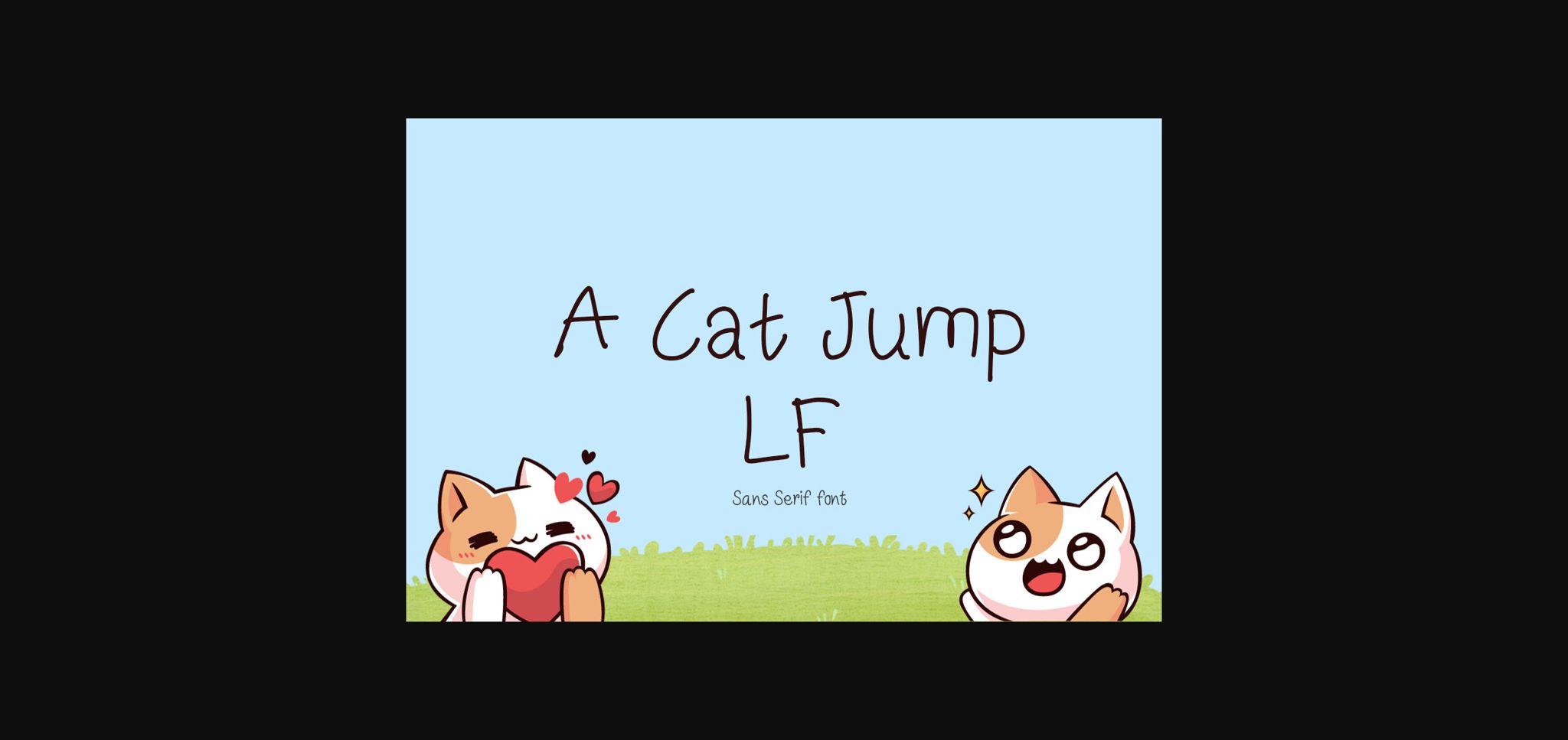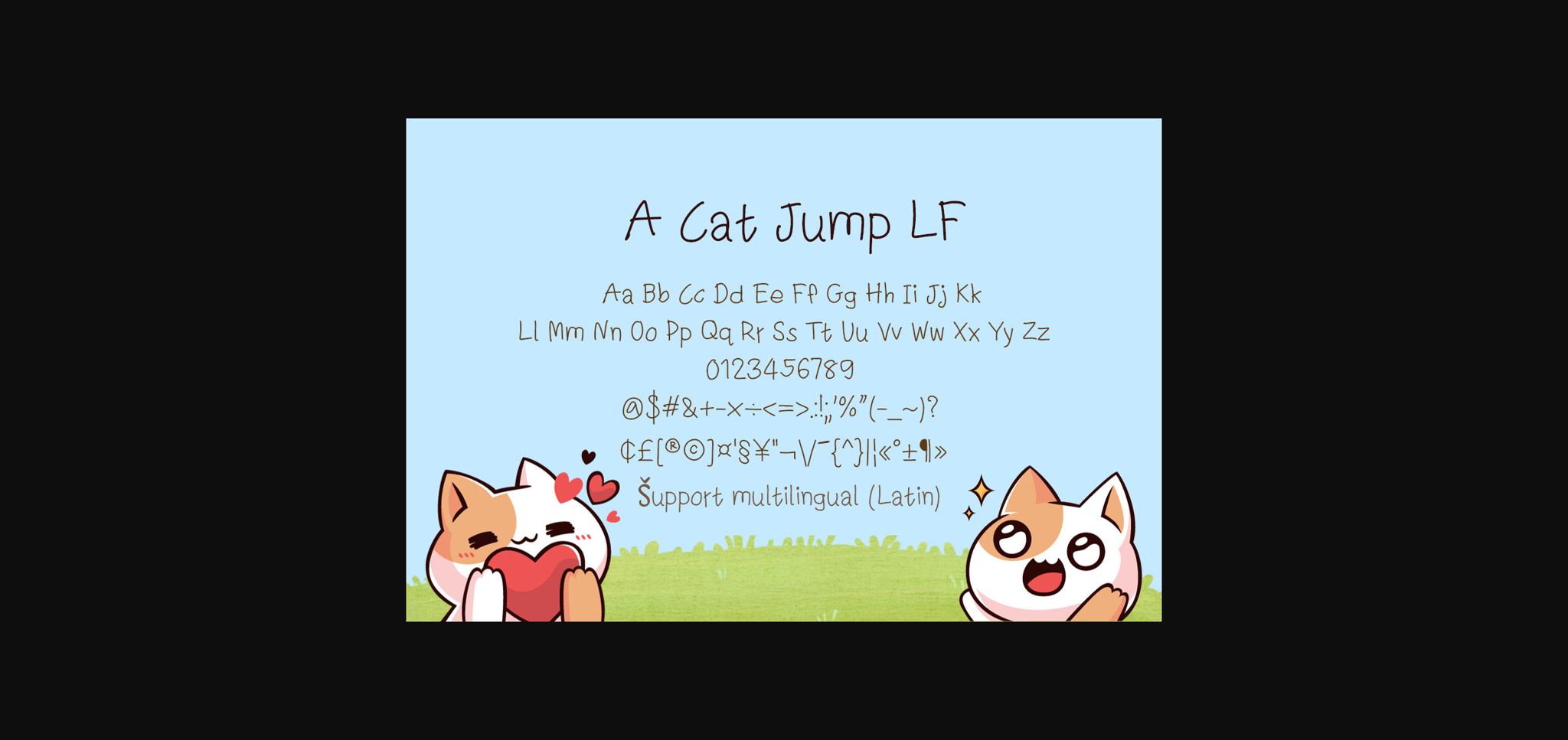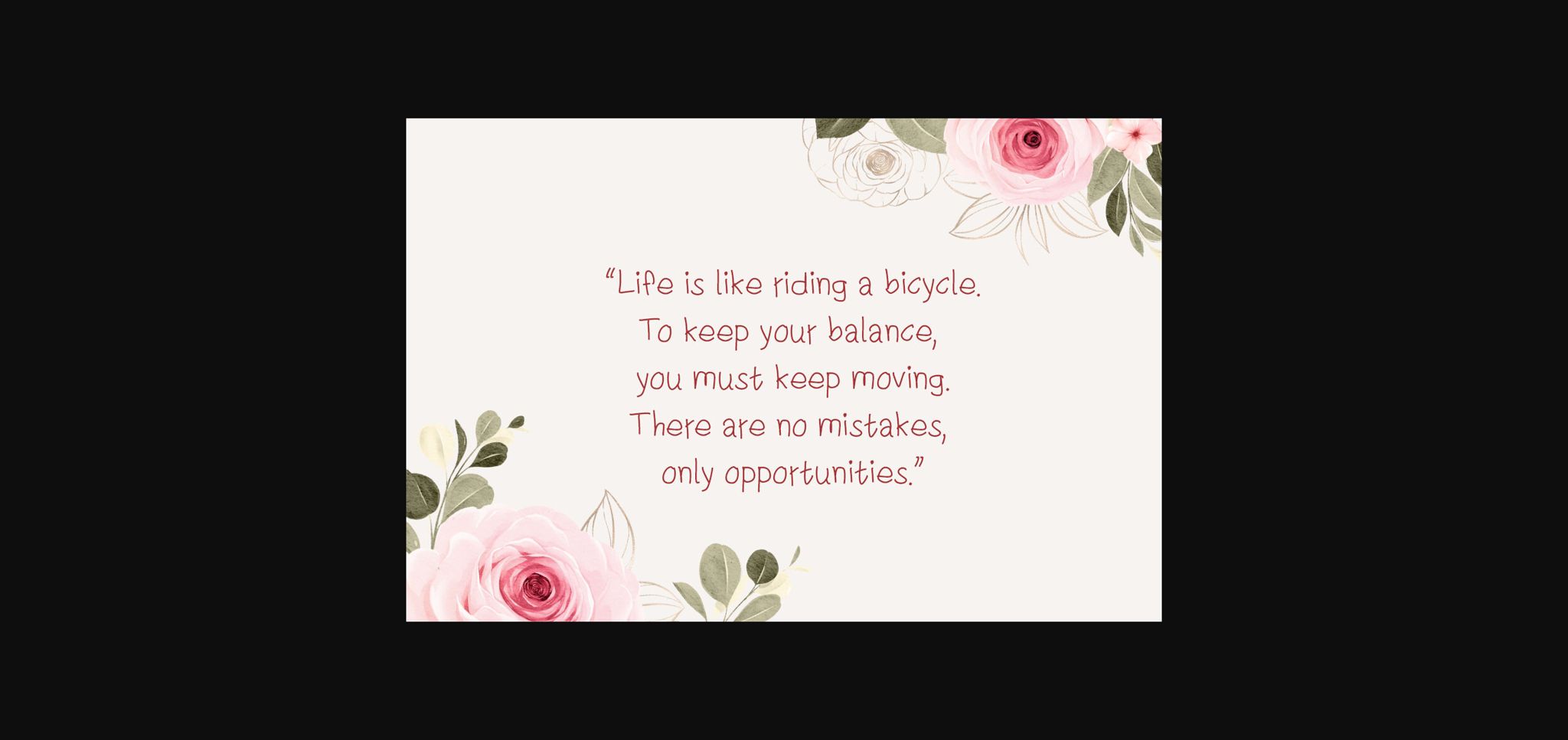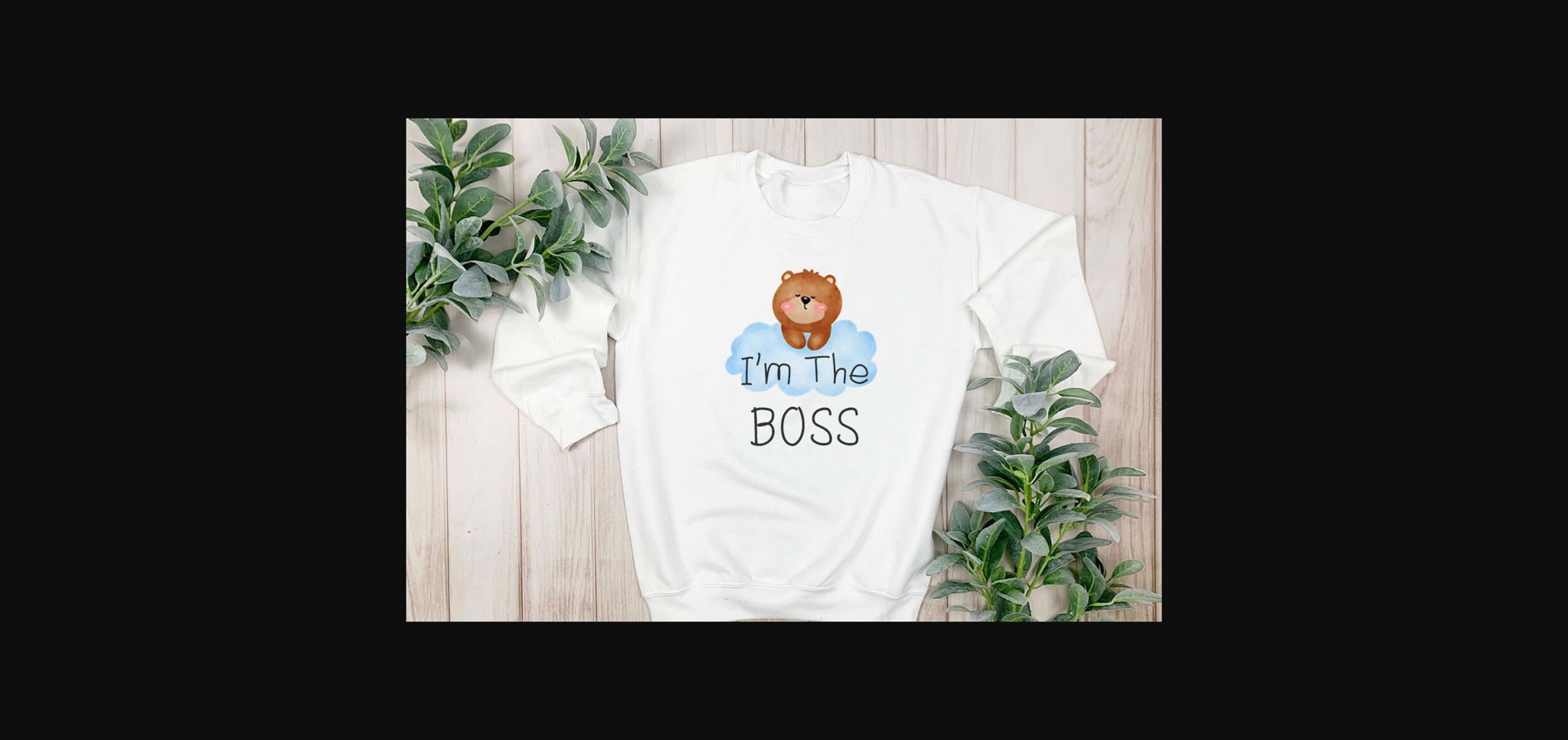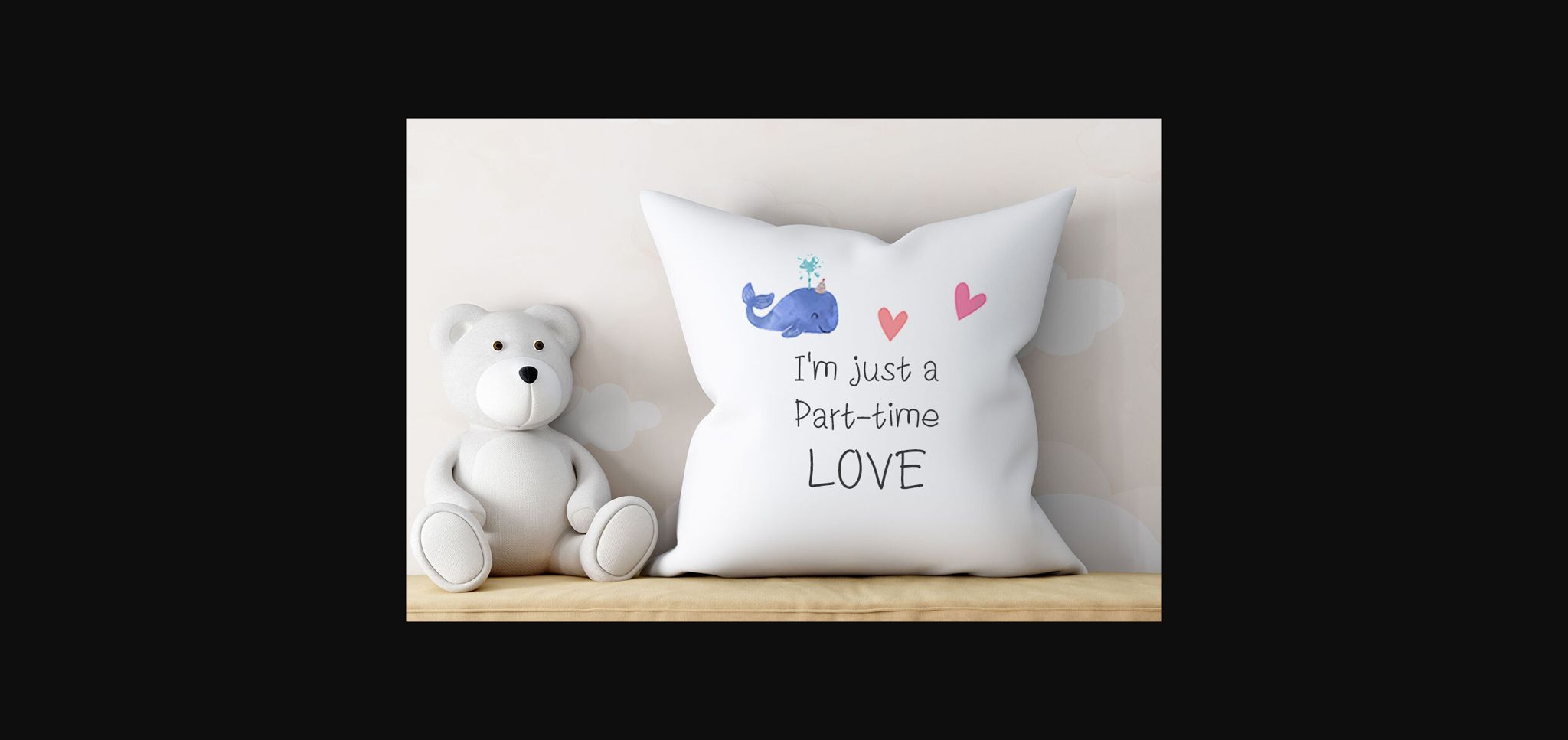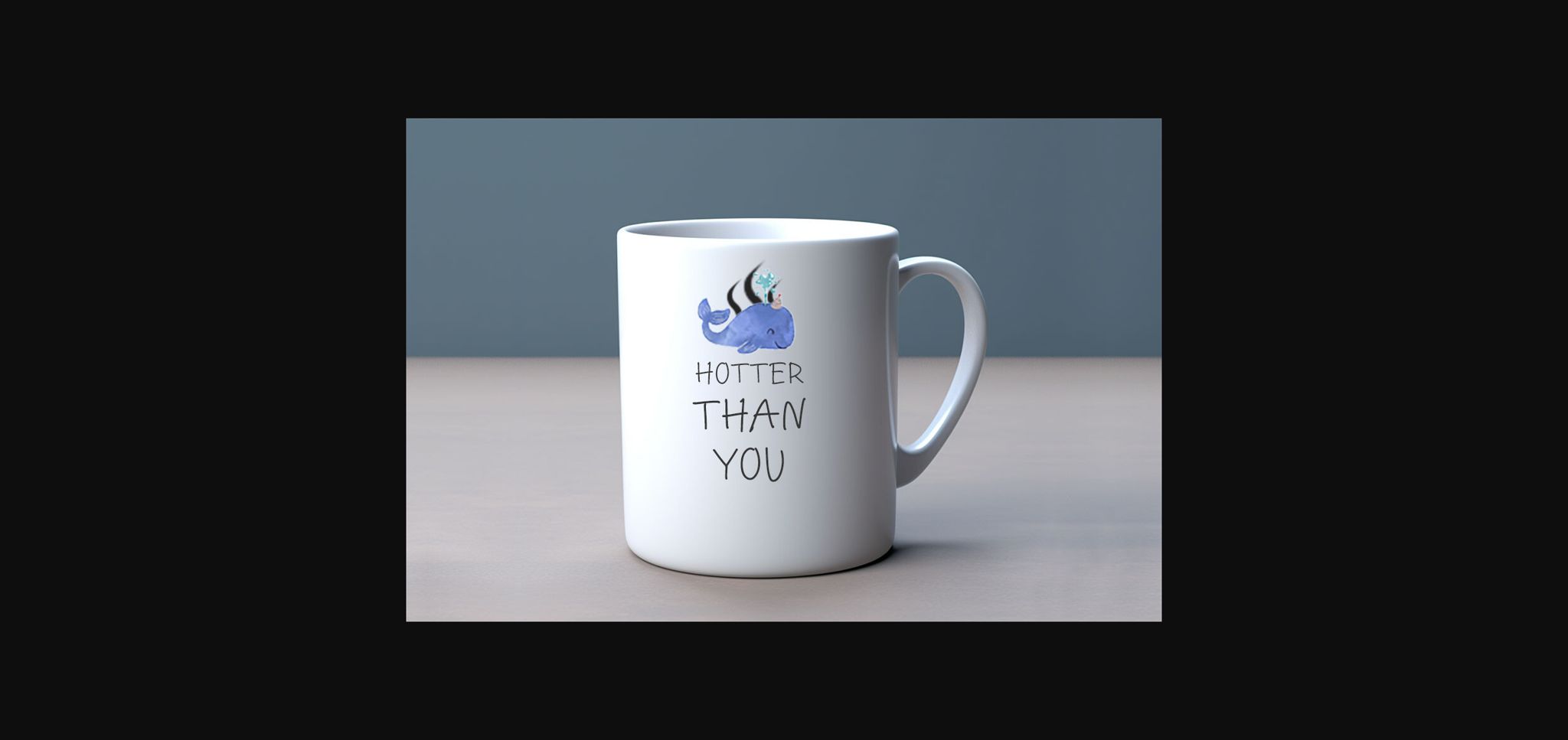
A Cat Jump Lf Font
About A Cat Jump Lf Font
A Cat Jump LF is a cute, playful, and Good mood sans serif font style. It would be awesome for your fun projects or diary planner, wedding invitations, thank you cards, quotes, greeting cards, logos, posters, children-themed designs, blogs, bags, T-Shirt, clothing, and other designs.